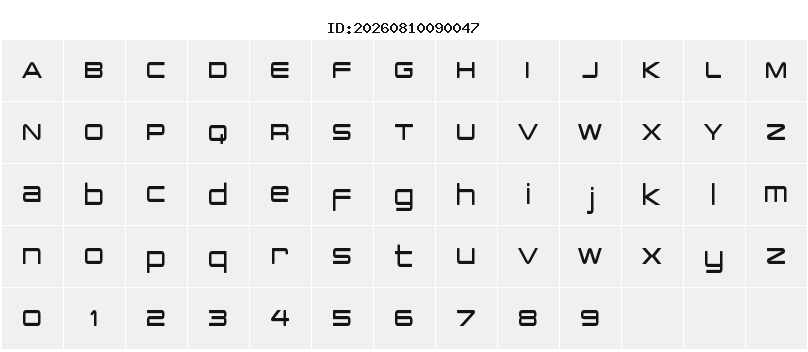
PCap Terminal Condensed Preview
• Font Name: PCap Terminal Condensed
• Full Font Name: PCap Terminal Condensed
• Version: Version 1.00 March 3, 2016, initial release
• Designer: Neale Davidson
About PCap Terminal Condensed.otf
PCap Terminal Condensed.otf is a modern, elegant sans-serif font designed for ultimate readability and visual harmony. Perfect for branding, headlines, web design, and print materials.